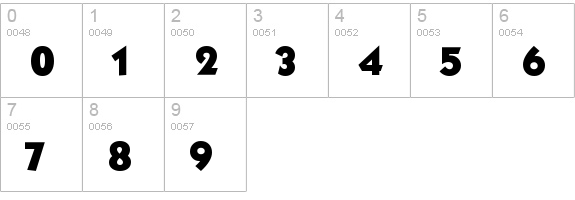
Bully Bold is a strong, high-contrast variant in the Bully typeface family \xE2\x80\x94 well suited to headlines, attention-grabbing titles, and strong calls-to-action.
Introducing Bully Bold font, a striking and powerful typeface that exudes confidence and boldness. Perfect for making a statement in your designs, this font features strong, thick lines that demand attention. With its edgy and modern look, Bully Bold is sure to make an impact on any project. The best part? Bully Bold font is completely free to download at FontsMarket.com. Whether you're creating posters, logos, or social media graphics, this font will add a touch of attitude and style to your work. Don't miss out on this unique and eye-catching typeface - download Bully Bold today and take your designs to the next level!